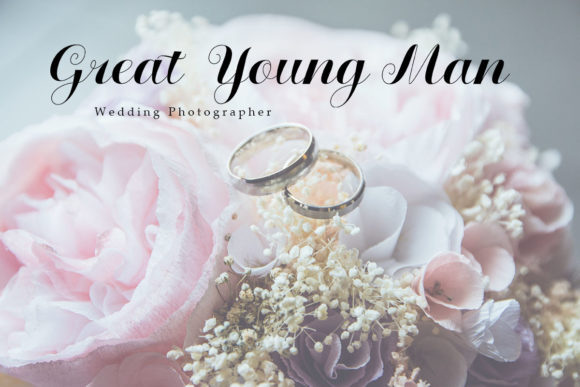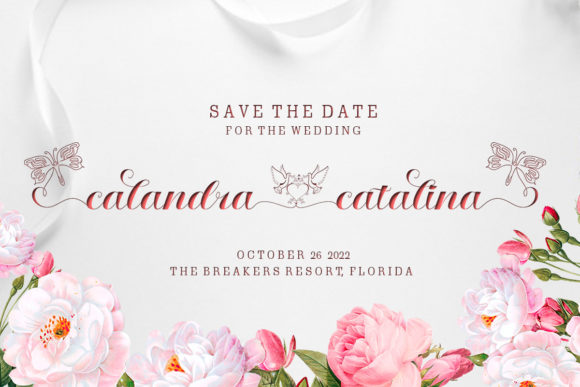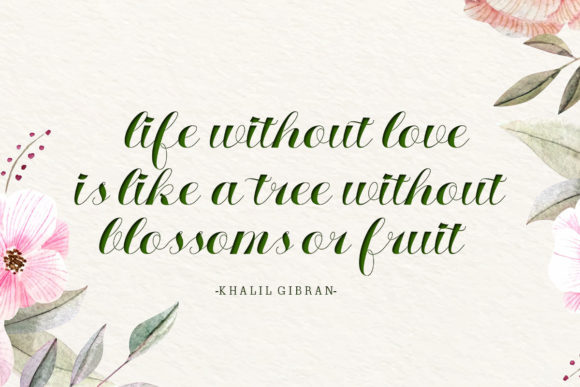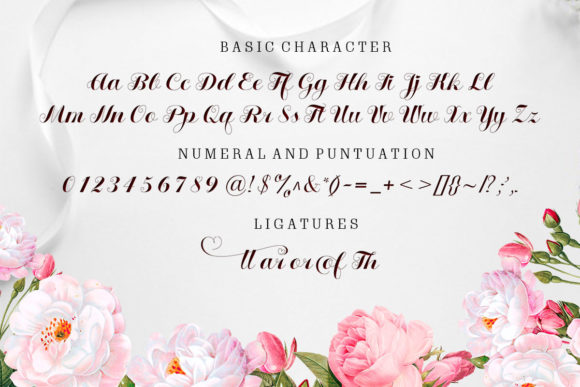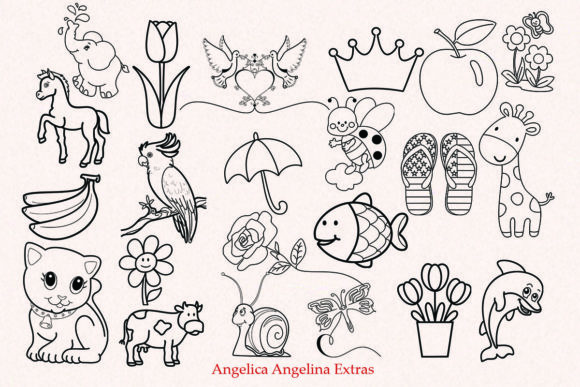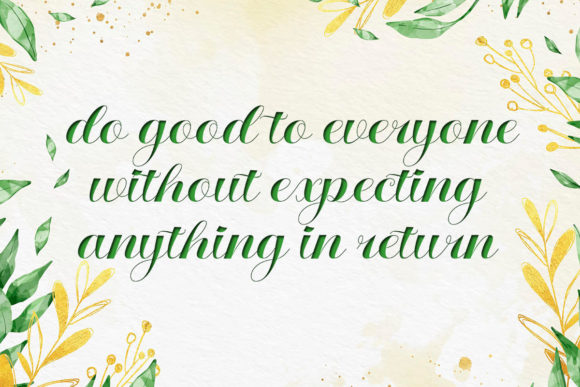
Meet Your New Favorite Script Font
There’s nothing quite like the feeling of being on a creative roll – the ideas are flowing, the designs are popping, and the world seems to be your canvas. It’s in these moments that we often find ourselves searching for the perfect font to bring our vision to life. And, let’s be honest, it’s not always easy to find that one special font that captures the essence of our artistic expression.
Enter Angelica Angelina Font – a charming script font designed to add a touch of whimsy and personality to your designs. With its playful characters and PUA encoding, this font is the perfect companion for designers looking to create unique and captivating visuals. Whether you’re working on a branding project, a wedding invitation, or a social media campaign, Angelica Angelina Font is sure to bring a smile to your face and a spark to your design.
So, what makes Angelica Angelina Font so valuable to designers? For one, its PUA encoding makes it incredibly easy to access all of its glyphs and swashes, allowing you to customize your designs with ease. Whether you’re a seasoned pro or a design newbie, this font is sure to become a trusted companion in your creative journey.
Angelica Angelina Font Key Features
- Unique Characteristics: Angelica Angelina features a unique, whimsical design with flowing curves and elegant lines, making it perfect for creative and artistic projects.
- Font Style: Angelica Angelina is available in 4 font styles: Regular, Italic, Bold, and Bold Italic, offering flexibility for various design needs.
Angelica Angelina Font Review
Overall, I think the Angelica Angelina Font has some lovely qualities that make it a great choice for certain projects. ✨ The font’s elegant and whimsical feel makes it perfect for designing materials like wedding invitations, greeting cards, and other special occasions.
- ✨ The font’s intricate details and flourishes add a touch of sophistication and romance.
- ✨ The font’s high contrast and x-height make it easy to read, even at smaller sizes.
- ✨ The font’s wide range of weights and styles allow for a lot of creative flexibility.
However, there are some limitations to keep in mind:
- ⚠️ The font may be too ornate for certain projects, making it difficult to read or understand the content.
- ⚠️ The font’s high contrast may not be suitable for projects where a more subtle look is desired.
Overall, I think the Angelica Angelina Font is a beautiful choice for projects that require a touch of elegance and romance. While it may not be the best choice for every project, it’s definitely worth considering for the right kind of design.
The Angelica Angelina font is perfect for:
Alternatives to Angelica Angelina Font
Great Vibes is a beautiful, elegant script font suitable for formal invitations, wedding designs, and luxury branding. It features swashes and flourishes, making it perfect for adding a touch of sophistication and romance. Compared to Angelica Angelina Font, Great Vibes has a more refined and polished look, while Angelica Angelina Font has a softer, more whimsical feel.
The Angelica Angelina Font is designed to be highly legible across various font sizes. For optimal readability, we recommend using font sizes between 12px and 48px. However, you can experiment with different sizes to achieve the desired visual effect.